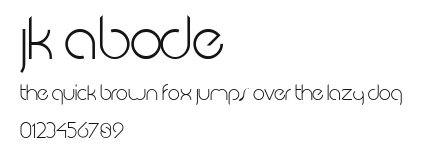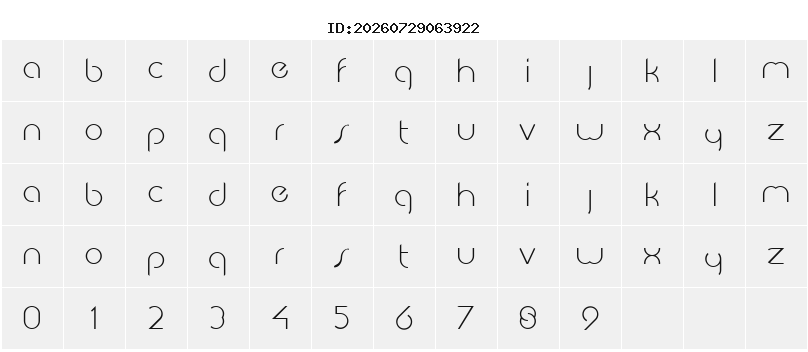
JK Abode Preview
• Font Name: JK Abode
• Font Style: Light Demo
• Full Font Name: JK Abode Light Demo
• Designer: Jacob King
About JK Abode.ttf
JK Abode.ttf is a modern, elegant sans-serif font designed for ultimate readability and visual harmony. Perfect for branding, headlines, web design, and print materials.